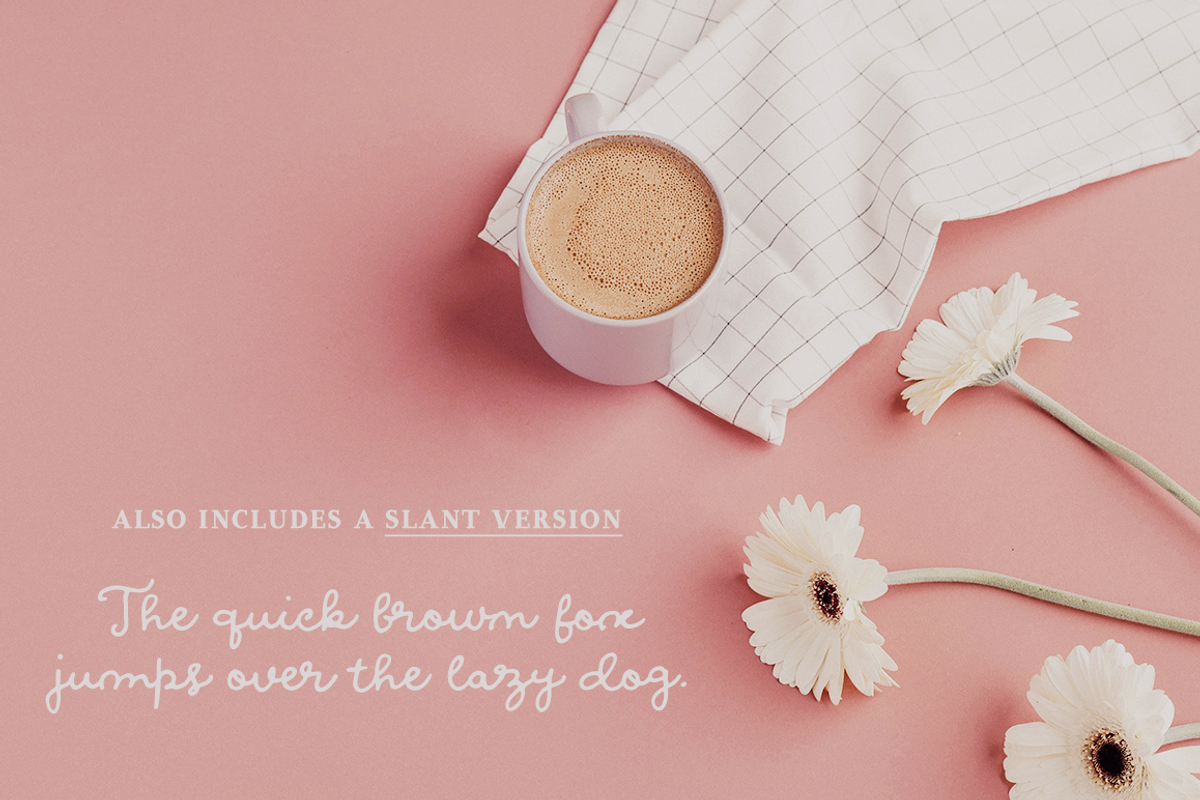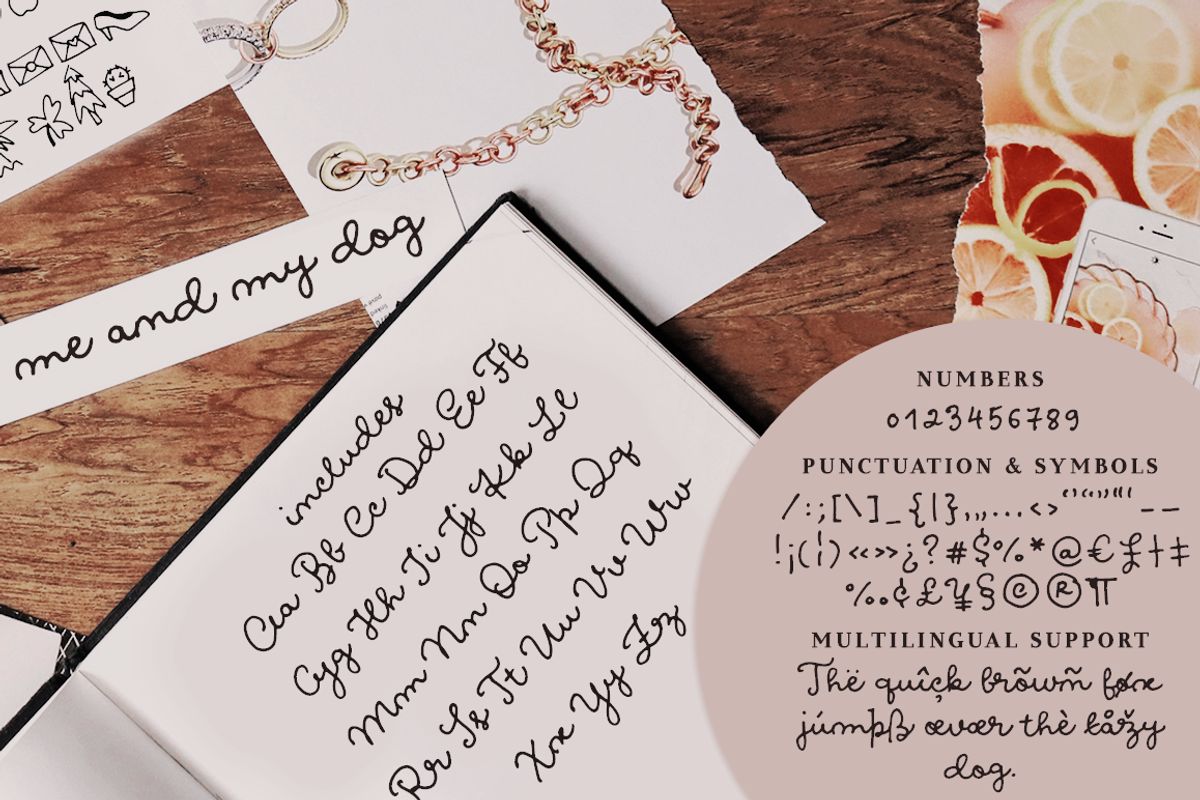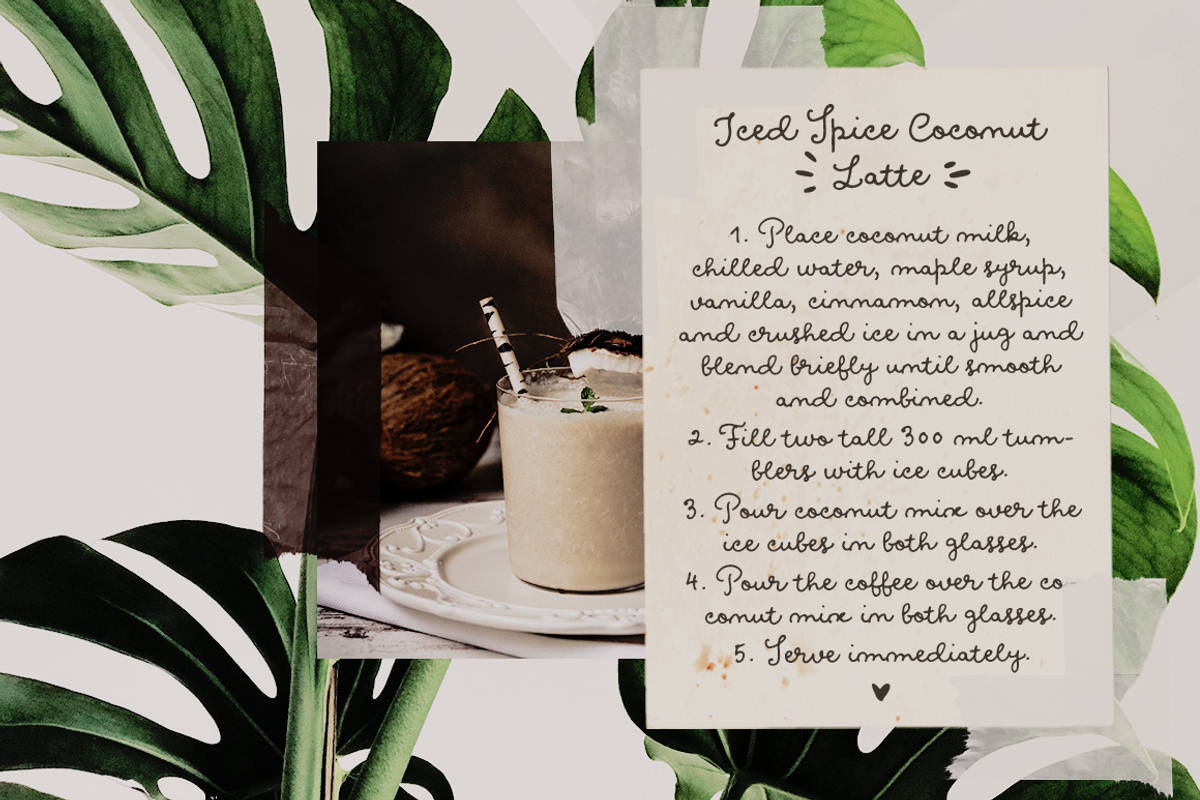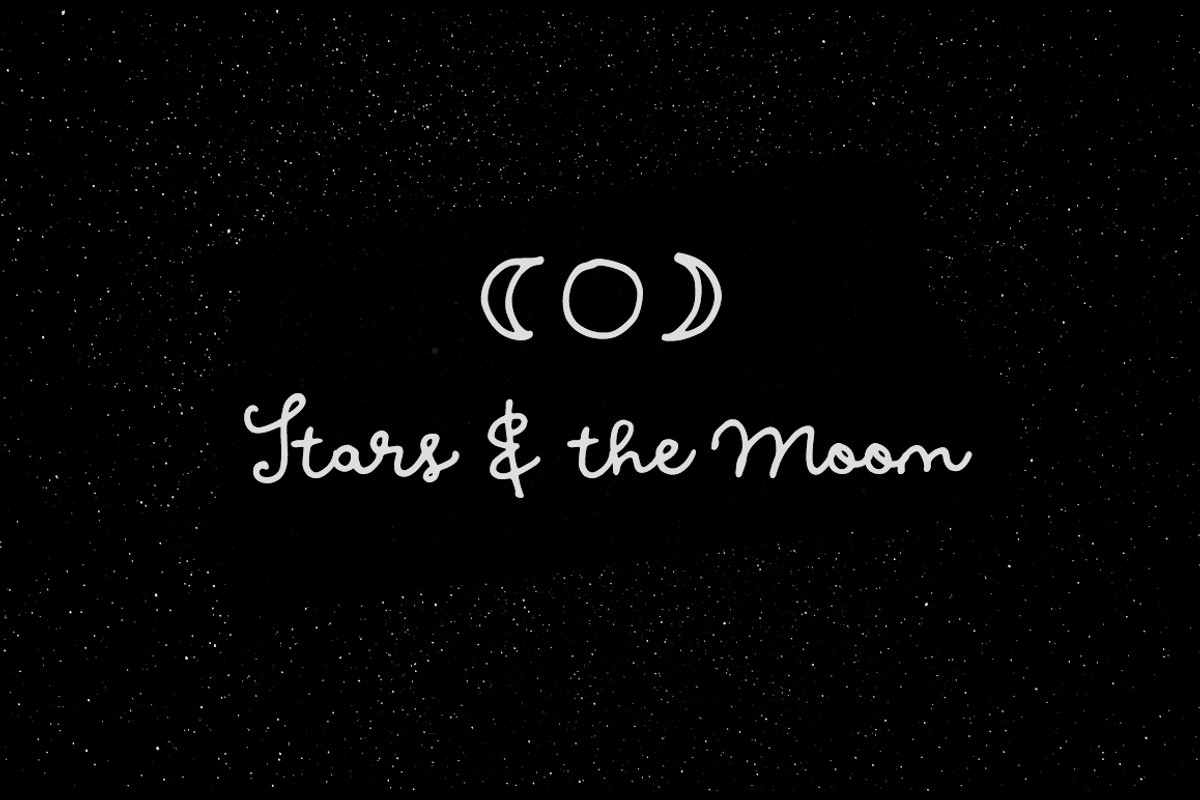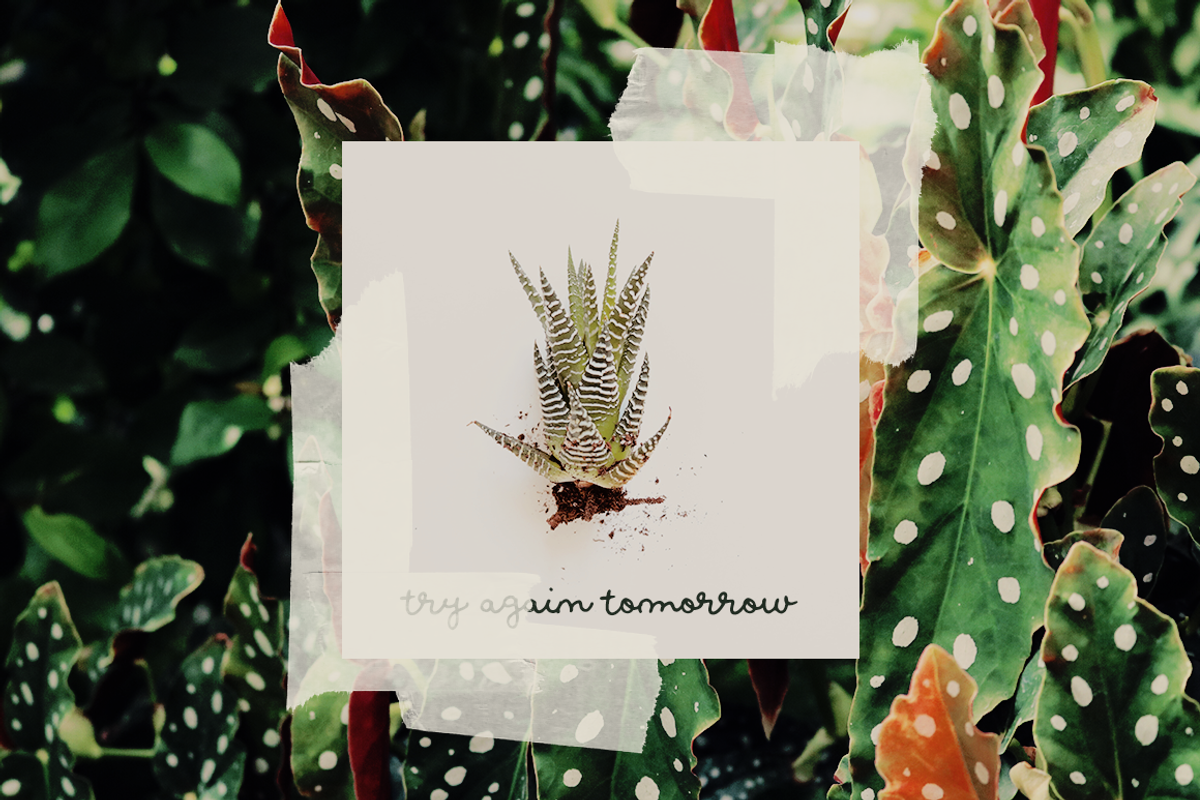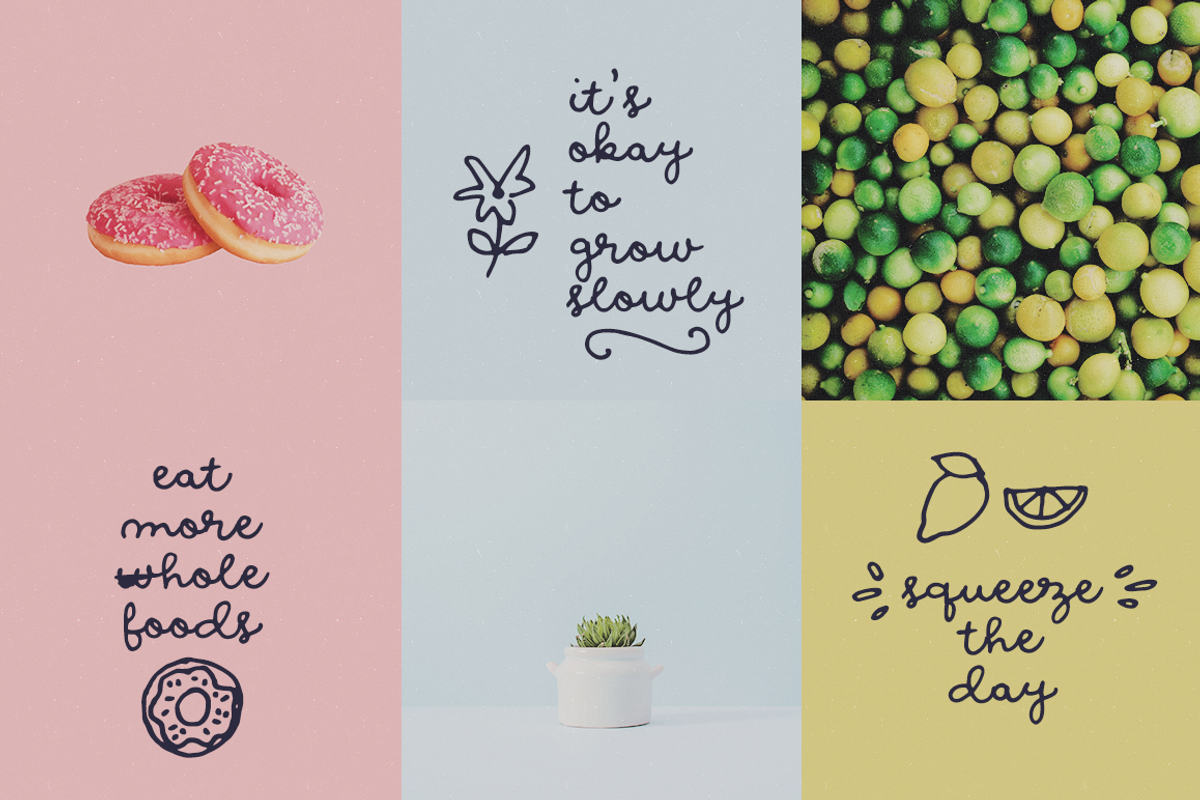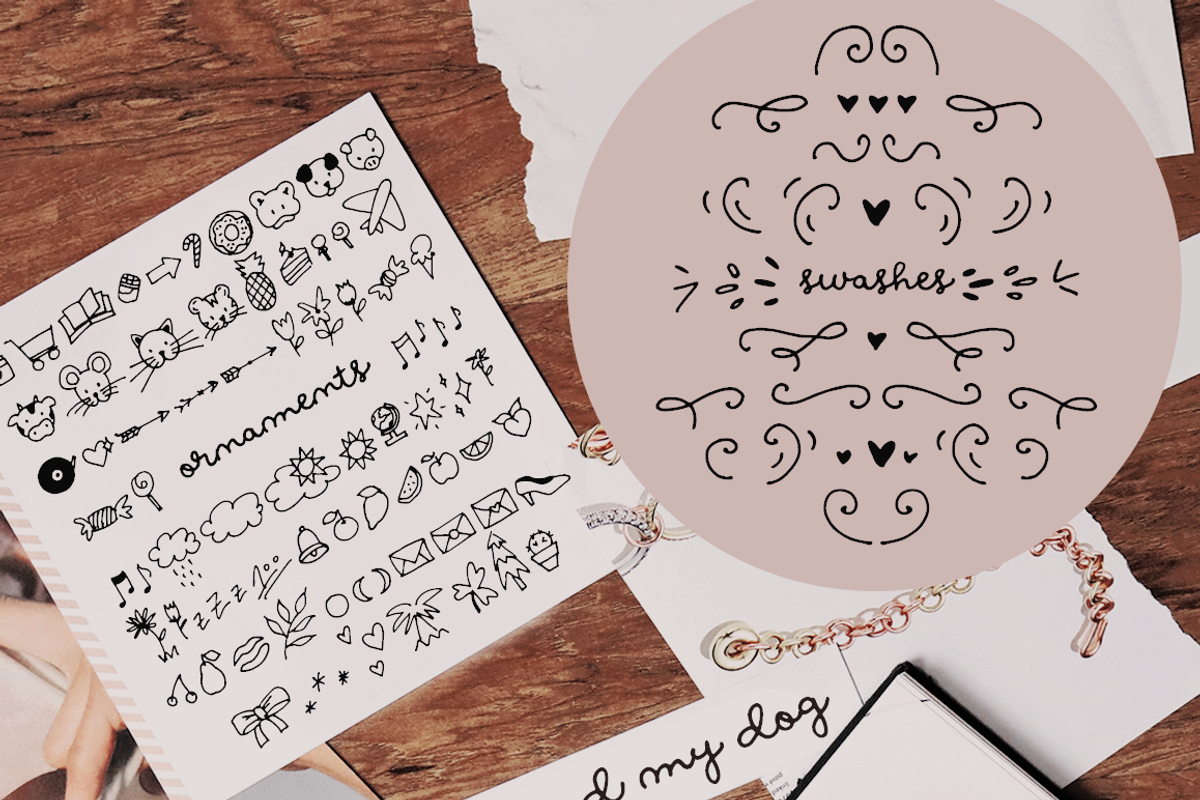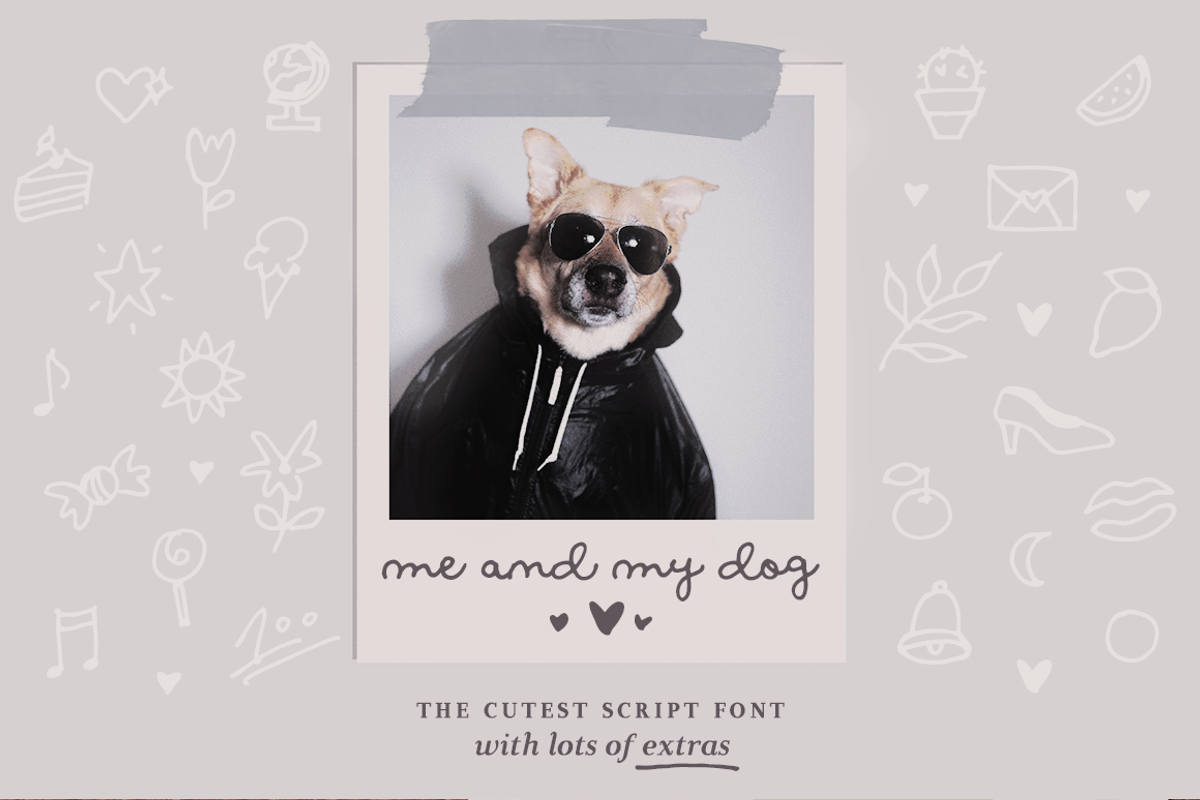
Me and my dog script font
Me and my dog is a cute handwritten script font with ornaments and swashes, perfect for any design that needs an adorable handmade feel.
1 script font in two styles: regular and slant, with ligatues for a smooth handwritten font.
1 ornaments font, with 72 cute handmade drawings (fruits, animals, sweets, plants, etc) in two styles: regular and blackout, for easy layering.
1 swashes font, with lots of swirls and underlines.
Use this font family for signatures and logos, notes and quotes, social media posts, and branding and packaging.